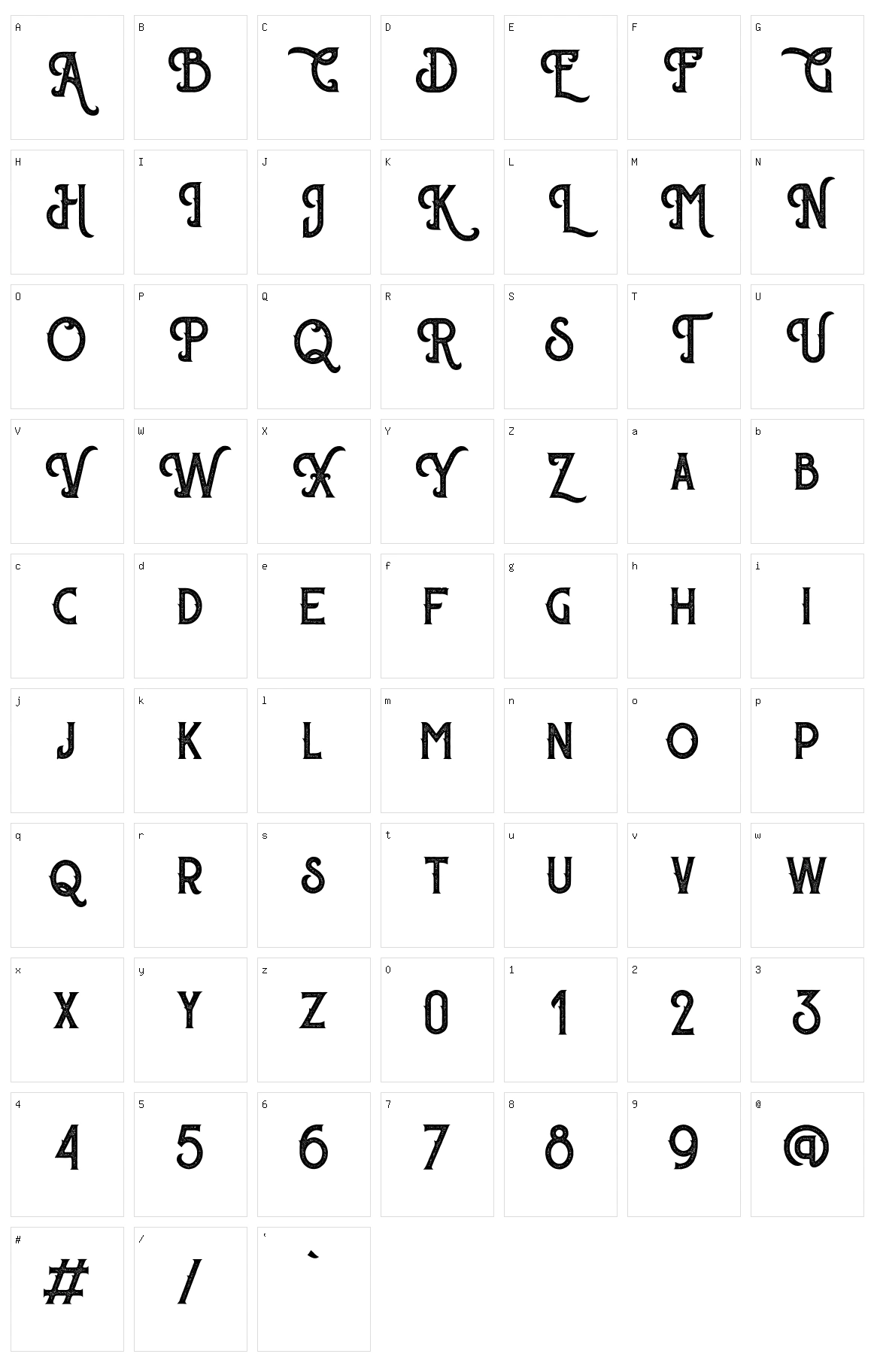
The free font Sherlock Press is carefully designed by Dikas Studio, showcasing a thoughtful balance of creativity and usability and falls under the Western font style. When you download the ZIP file, it contains only 1108.87 KB of font files, making it lightweight and quick to download. Please review the license details below to understand permitted usage and distribution rights. If license information is not available, we recommend using this font for personal projects only or contacting the author directly for commercial usage permissions.